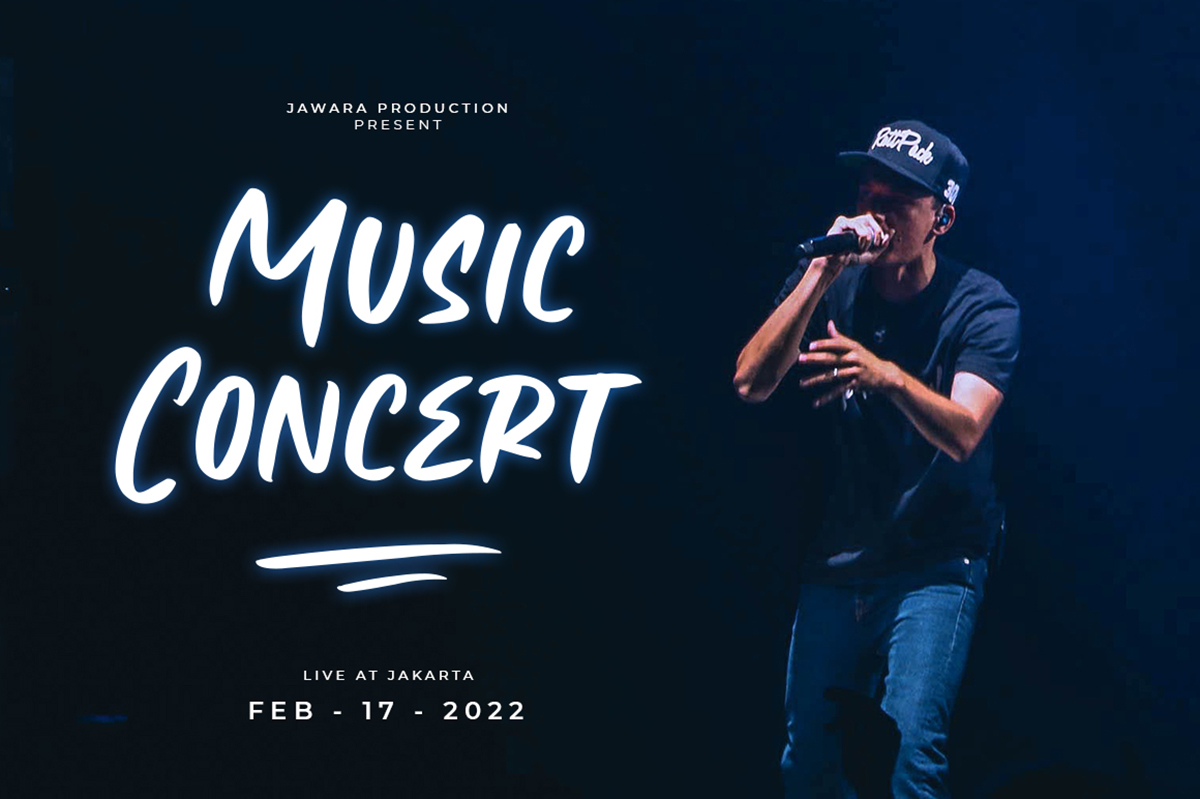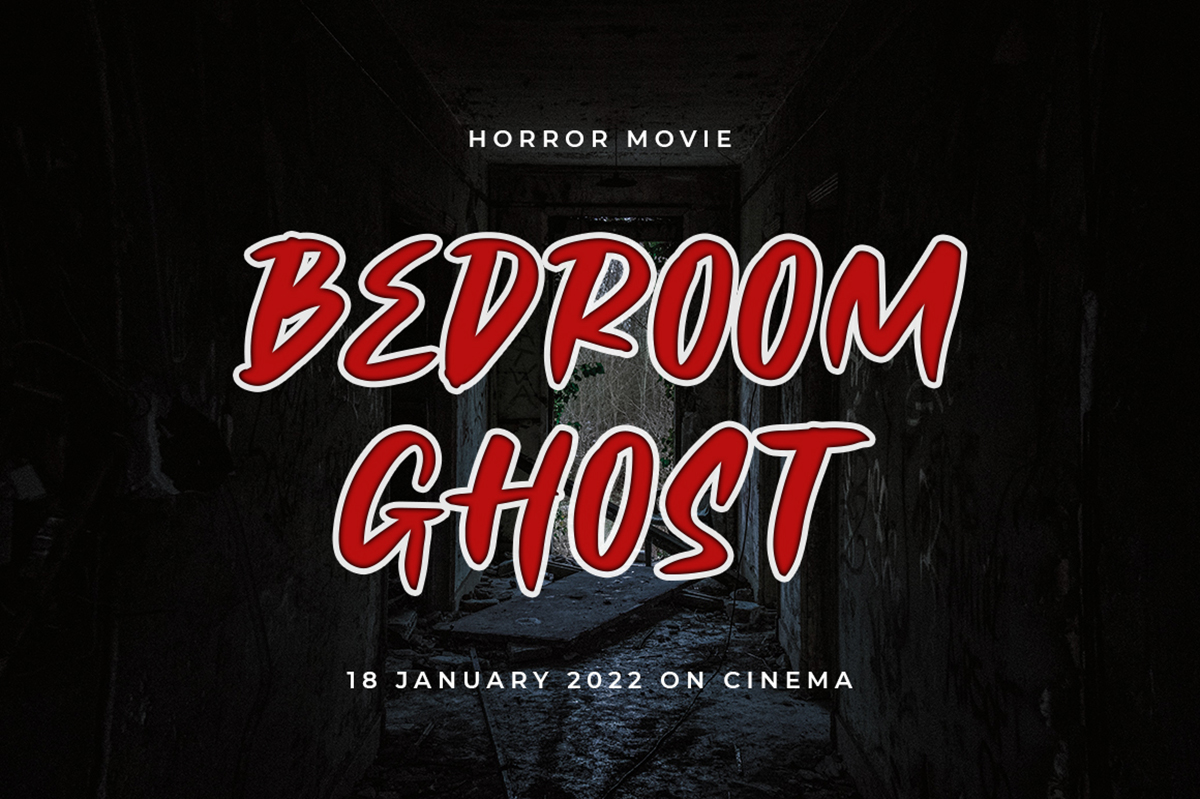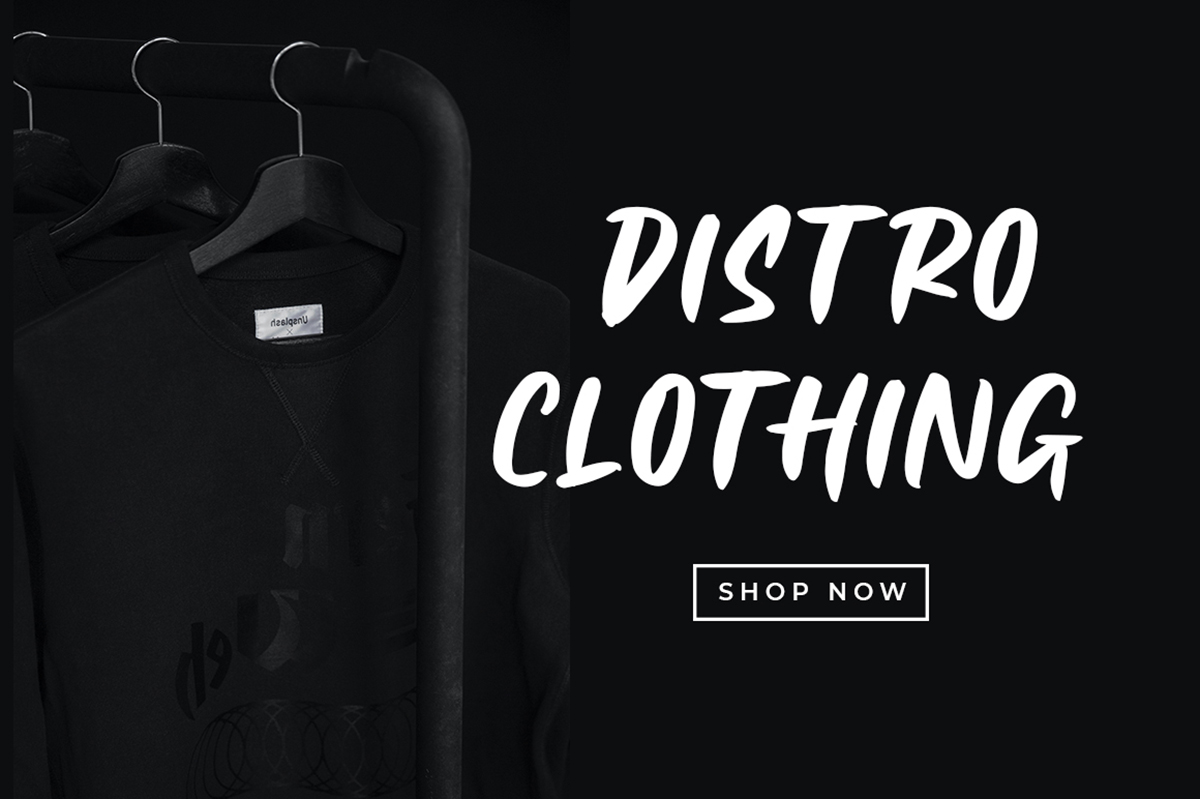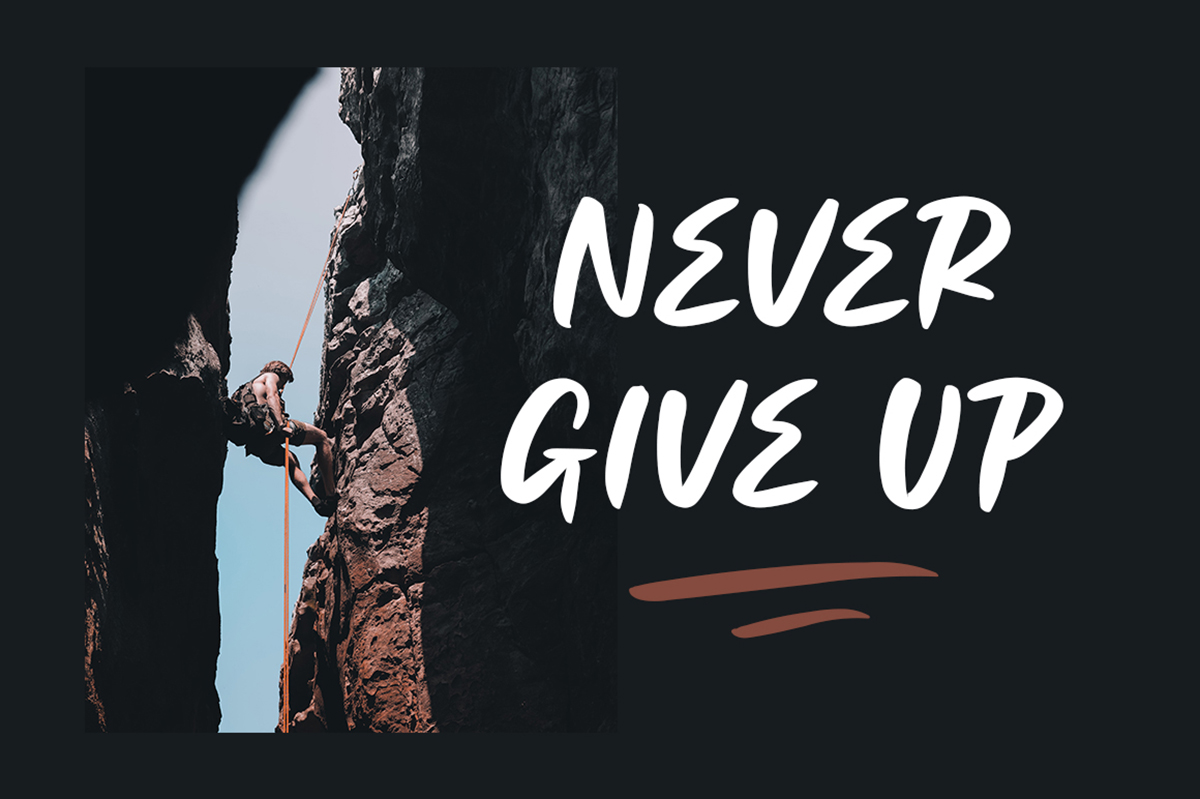
Black Shadow Free Font
Introducing Black Shadow, a stylish and laid-back display font. Perfect for diverse designs including t-shirts, sportswear, logos, advertisements, clothing, and beyond. Elevate your creative projects with this cool and versatile typeface. This free typeface was designed by a talentedΒ Bluestype Studio. If you like it don’t forget to check out the full version.